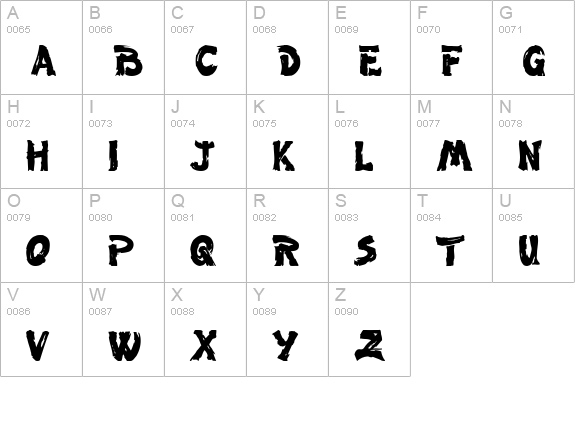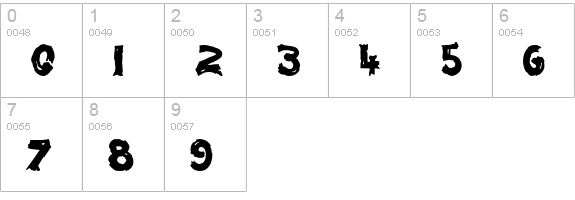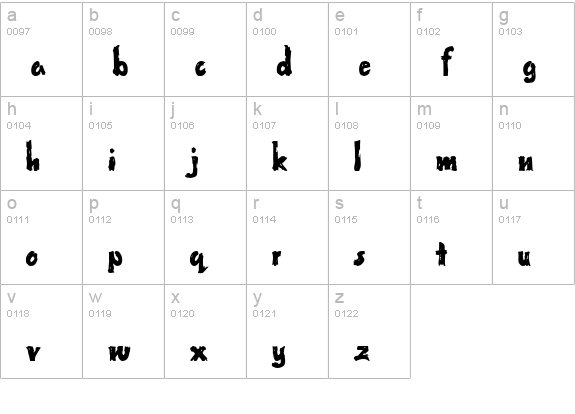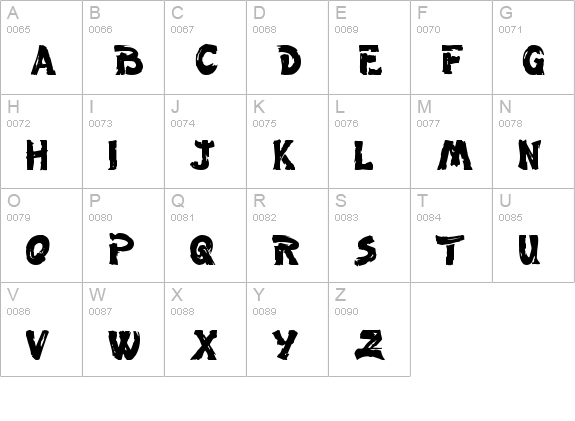
Tumbleweed MF Font Details
Tumbleweed MF is a charming and versatile font that captures the essence of the wild west with its rugged and rustic appearance. This typeface exudes a sense of adventure and nostalgia, making it perfect for a wide range of design projects. Its unique design features rough edges and uneven strokes, giving it a handcrafted and authentic feel. The Tumbleweed MF font is freely available to download at FontsMarket.com, making it easily accessible for designers looking to add a touch of character to their work. Whether you're creating posters, logos, or branding materials, this font will add a touch of personality and flair to your designs. Embrace the spirit of the frontier with Tumbleweed MF and bring a sense of adventure to your projects.